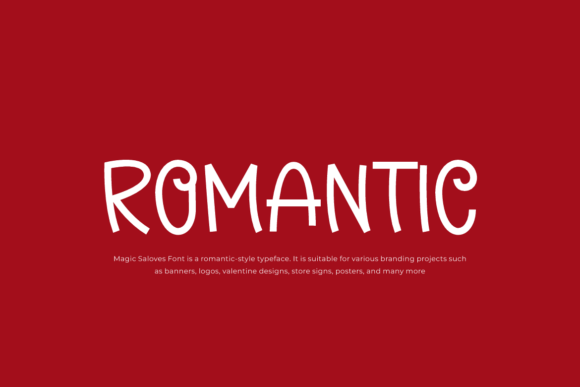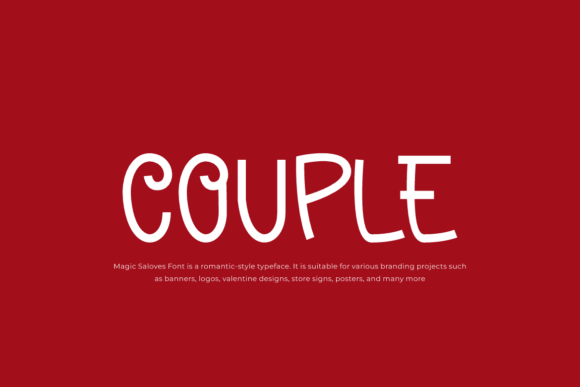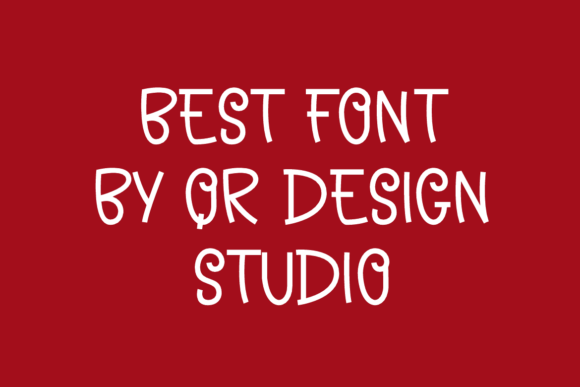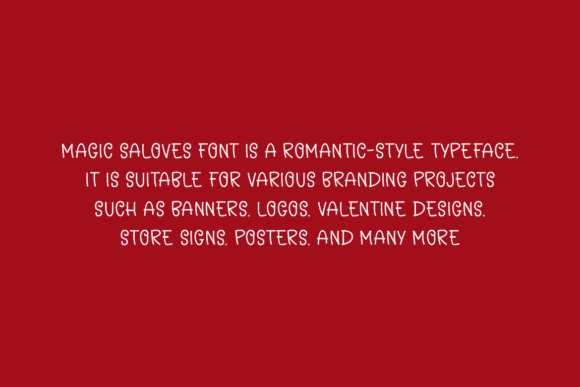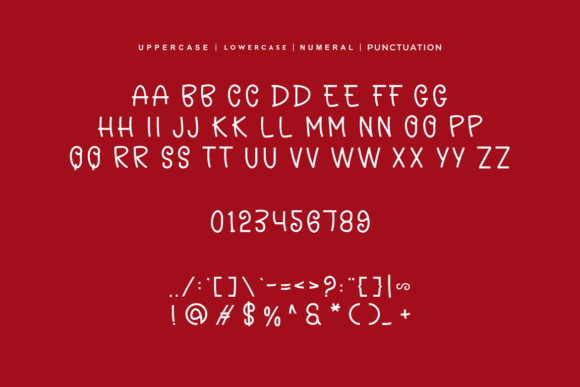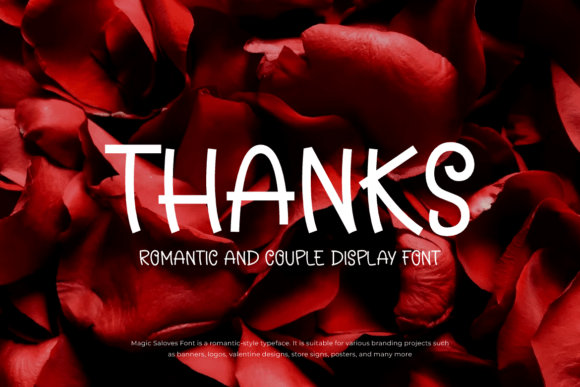
Introduction to Magic Saloves Font
Have you ever been working on a design project, pouring your heart and soul into it, and suddenly you need that one perfect font to bring it all together? That’s exactly what happened to me when I was working on a Valentine’s Day campaign for a client. I wanted a font that would capture the essence of love and romance, something that would make the viewer feel all the feels. And then, I stumbled upon Magic Saloves Font – a whimsical, romantic-style display font that stole my heart.
As a designer, you understand the importance of having a reliable design resource at your fingertips. Magic Saloves Font is a high-quality, free download that’s perfect for adding a touch of magic to your creative projects. Whether you’re working on a wedding invitation, a store sign, or a digital banner, this font is sure to make your message stand out with its elegant organic curves and playful, tall letterforms.
Key Features of Magic Saloves Font
- High-quality, unique design perfect for creative projects and design resources.
- Features a transparent background, ideal for use on various backgrounds and design elements.
- Includes a range of characters, including uppercase and lowercase letters, numbers, and special symbols.
- Designed to be highly legible and visually appealing, making it suitable for use in various design contexts.
Honest Review: Magic Saloves Font
I recently stumbled upon the Magic Saloves Font while searching for a unique design resource for a creative project. I was drawn in by its quirky charm and decided to give it a try. Overall, I’m impressed with the Magic Saloves Font, but it’s not without its limitations.
- The high quality of the font is evident in its crisp, clean lines and well-defined characters.
- The font is a bit limited in its range of styles and variations, which may not be suitable for projects that require a lot of customization.
- The font’s unique charm may not appeal to all designers, so it’s worth considering your project’s tone and style before using it.
Overall, I’m impressed with the Magic Saloves Font’s unique character and high quality. While it may not be the most versatile font out there, it’s definitely worth considering for creative projects that require a touch of whimsy. With a little creativity, the Magic Saloves Font can be a valuable addition to your design toolkit.
The Magic Saloves Font is ideal for various creative projects, including:
- Poster design